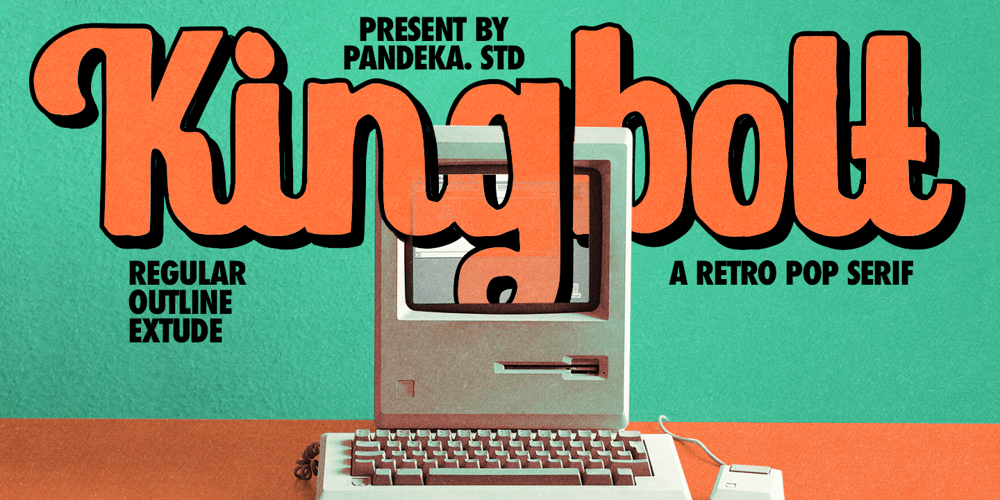
Kingbolt Font Family was designed by Sagara Nararya and published by Pandeka Studio. Kingbolt contains 3 styles and family package options. Kingbolt Retro is a handdrawn retro bold font that contain Uppercase, Lowercase, Numerals, Accents, Punctuation and Alternate. Also this font contain Outline and Extrude version. You can use to make a logo for branding, best for packaging design, and quotes. This font also already PUA Encoded.What’s Included? Kingbolt Regular, Outline and Extrude version Instructions (Access special characters in all apps, even in Cricut Design) Unique Letterforms Works on PC & Mac Simple Installations Accessible in Adobe Illustrator, Adobe Photoshop, Microsoft Word even Canva! PUA Encoded Characters. Fully accessible without additional design software. Language Support: Danish, English, Estonian, Filipino, Finnish, French, Friulian, Galician, German, Gusii, Indonesian, Irish, Italian, Luxembourgish, Norwegian Bokmål, Norwegian Nynorsk, Nyankole, Oromo, Portuguese, Romansh, Rombo, Spanish, Swedish, Swiss-German, Uzbek (Latin)Thank youPandeka Studio